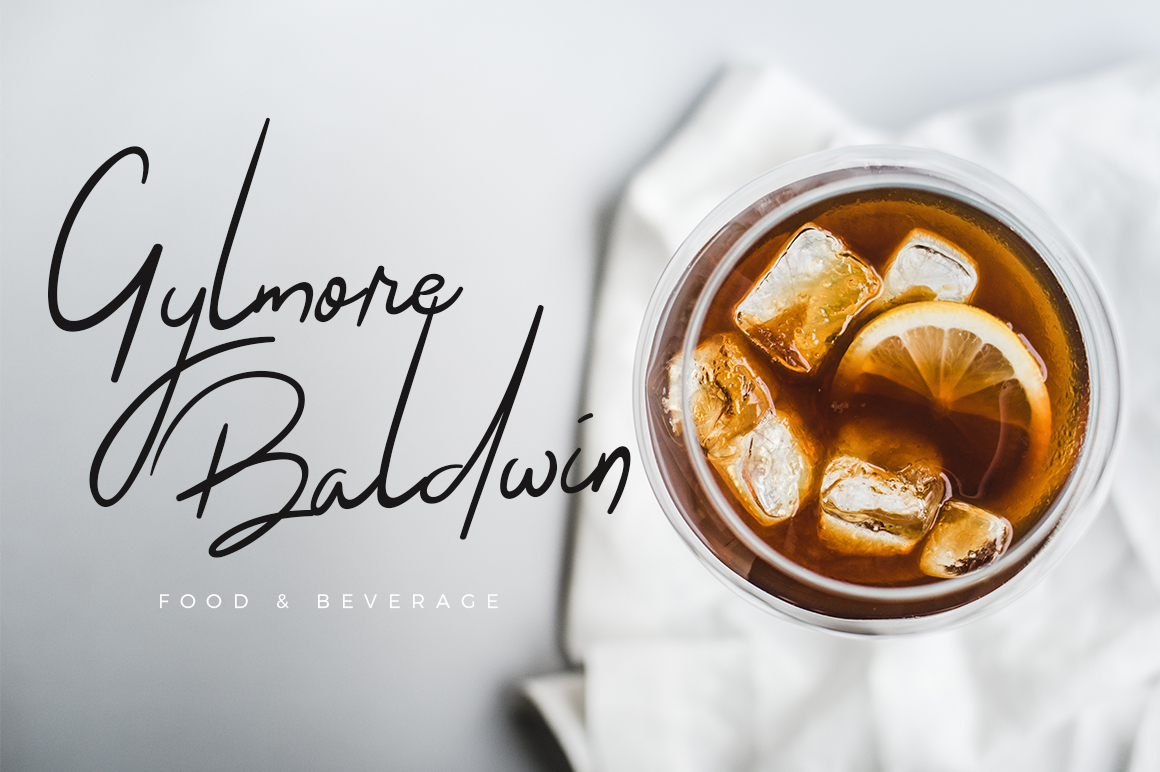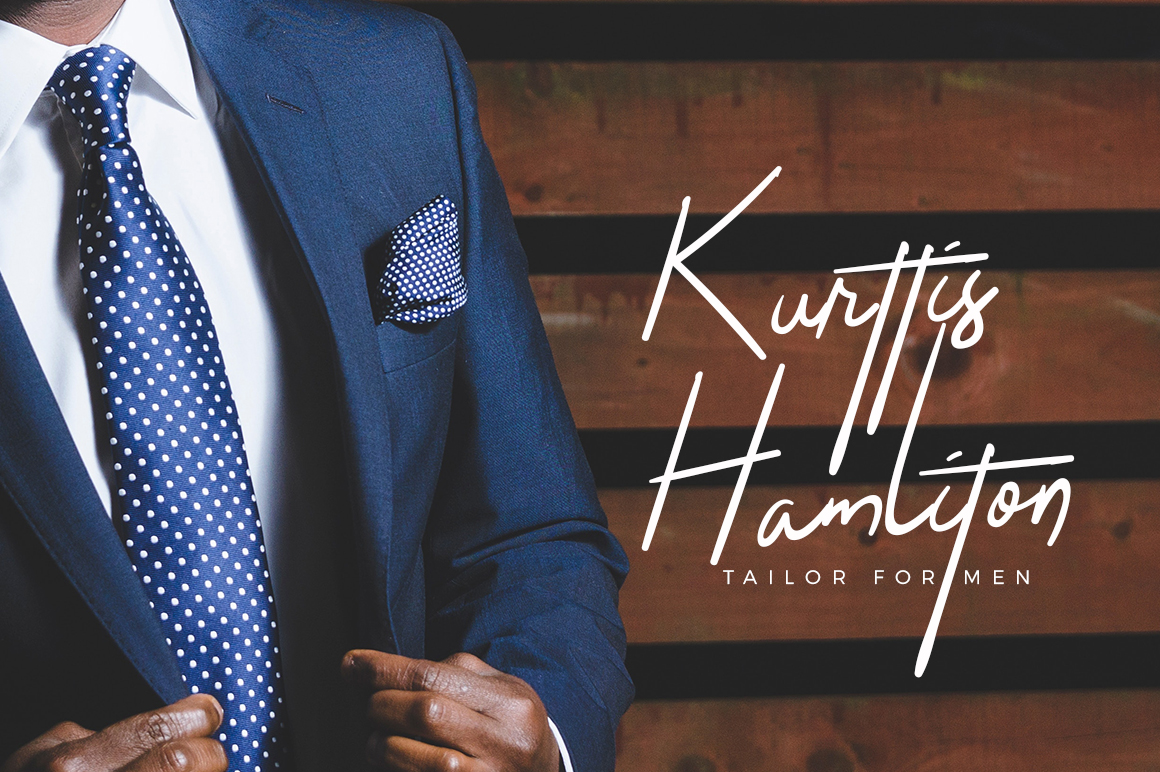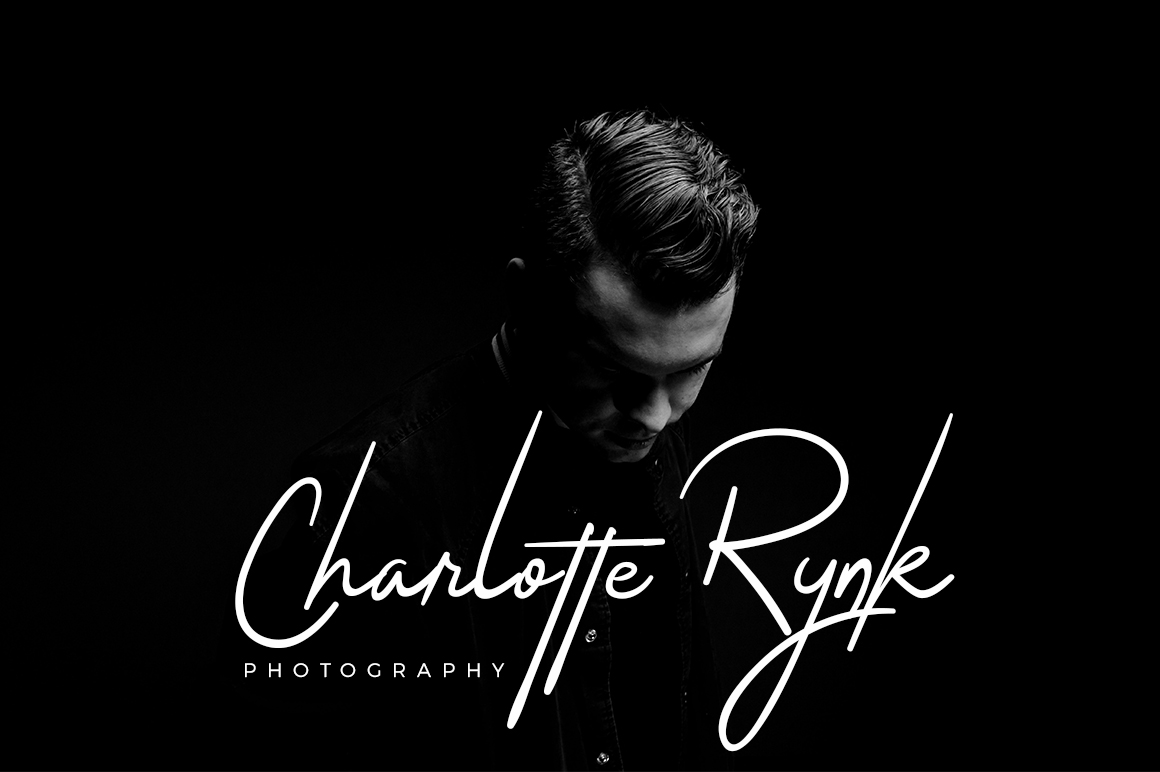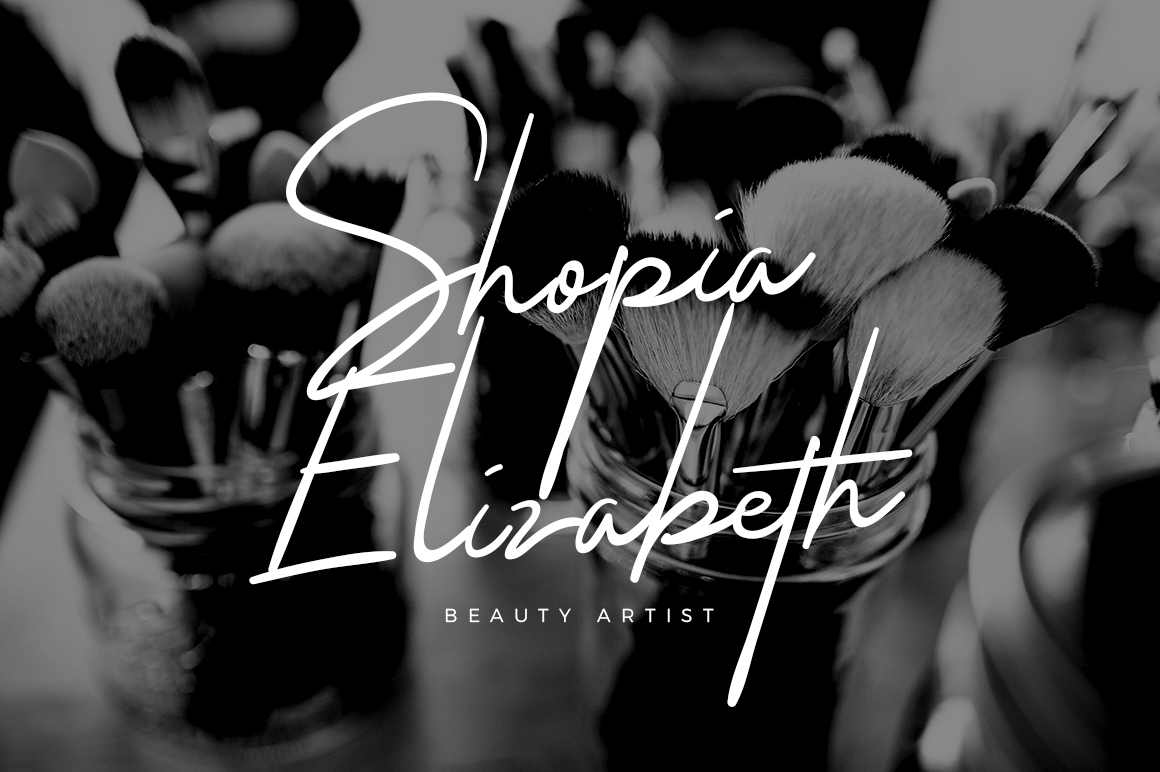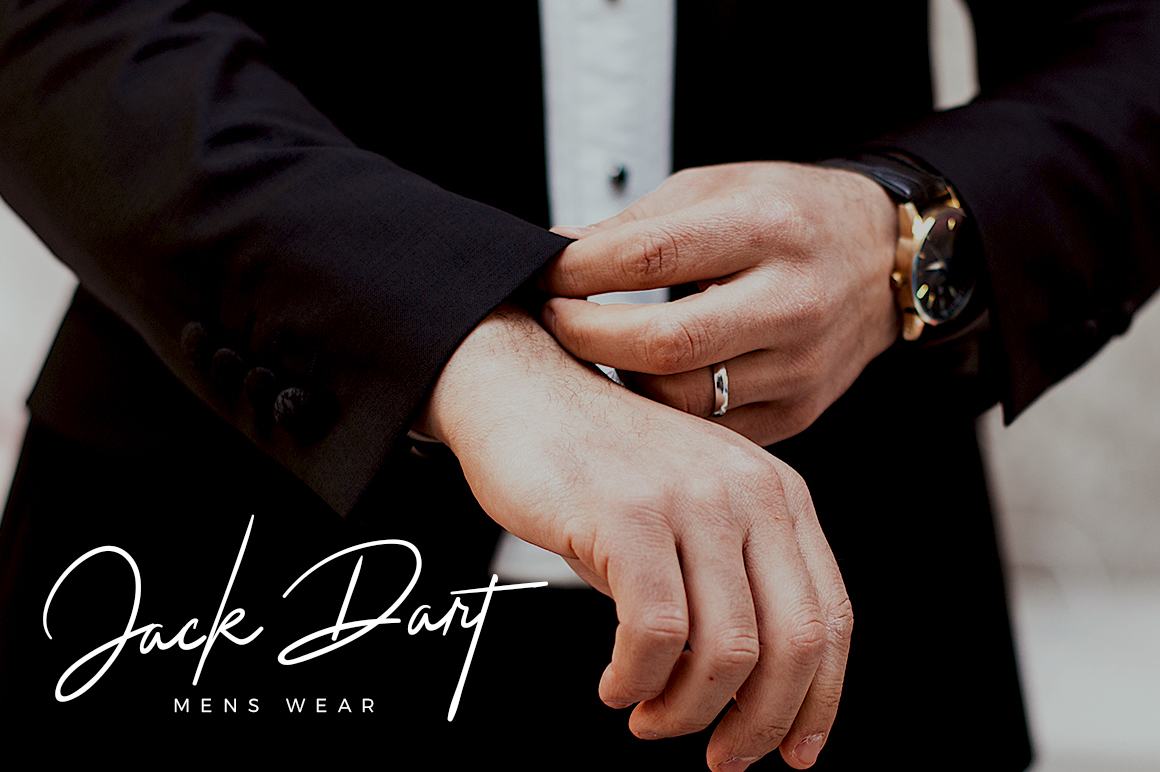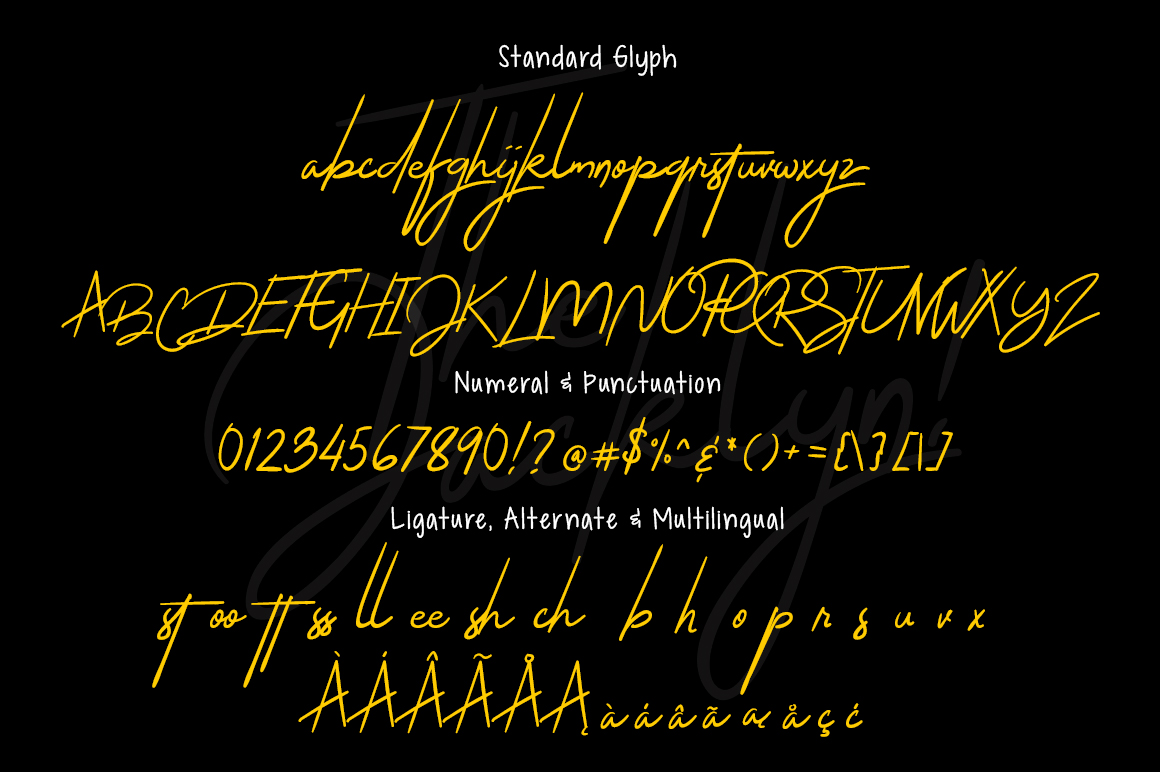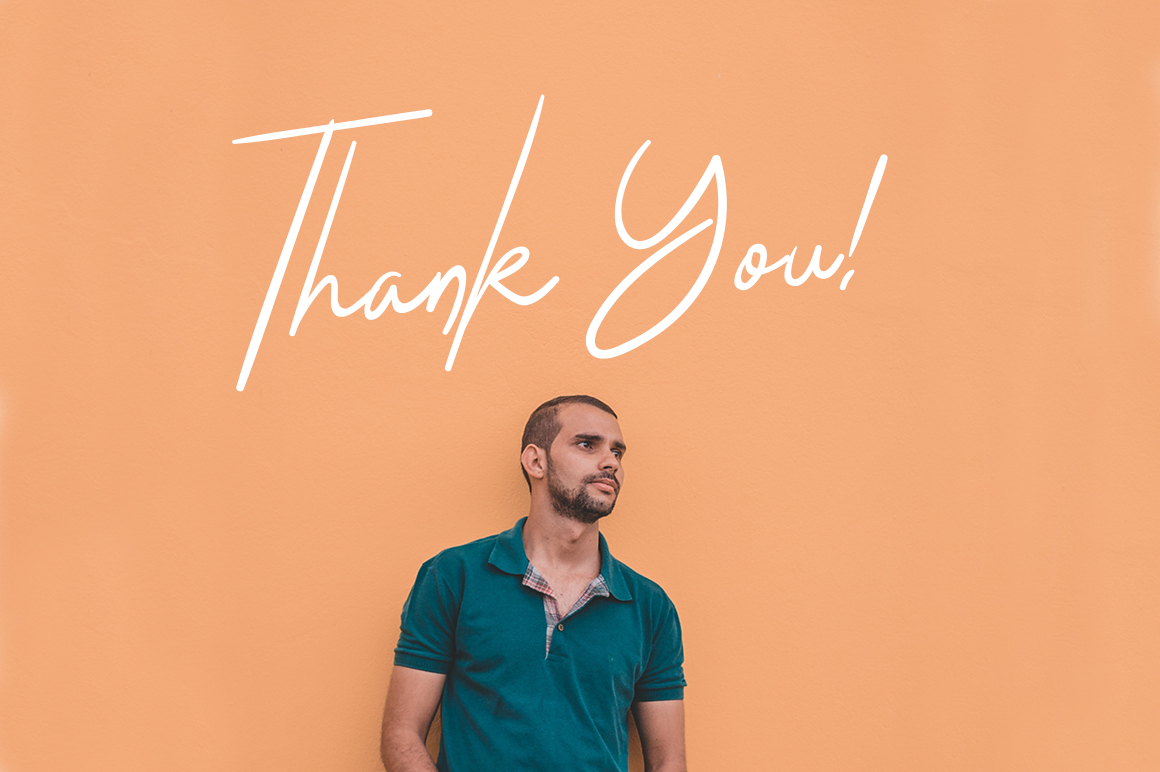
The Jacklyn Font
About The Jacklyn Font
The Jacklyn is a beautiful signature styled script that is modern and sophisticated that is perfect for a wide range of designs and project types. This classy and strong font is ideal for giving your work an elegant and editorial feel.